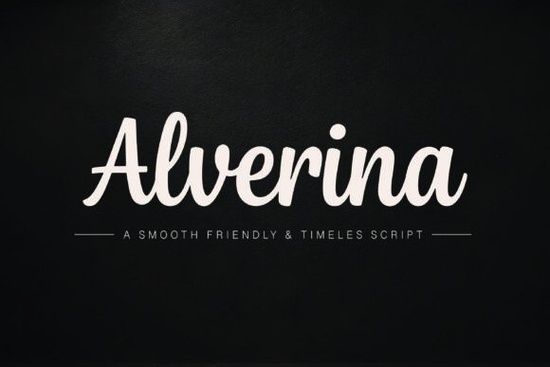
Finding a script font that looks polished but still feels personal can be tricky. The Alverina font strikes that balance well it has the flowing, elegant strokes of professional calligraphy with a warm, modern personality that works across many design styles. If you're working on branding, invitations, or social media graphics, this handwritten script font deserves a closer look.
What Does the Alverina Font Actually Look Like?
Alverina is a smooth handwritten script with bold strokes and soft connections between letters. The curves are flowing but controlled, giving it a premium signature feel without looking stiff or overly formal. It reads well at both large display sizes and smaller text, which is something many script fonts struggle with.
The letterforms have an expressive, natural quality like someone with great handwriting took their time. This makes it a strong choice for designs that need to feel luxurious but approachable at the same time.
Where Does This Font Work Best?
Based on its style and readability, here are some practical uses for Alverina:
- Logo design especially for beauty, fashion, lifestyle, and food brands
- Wedding invitations and event stationery
- Packaging and product labels for handmade or boutique goods
- Café menus and restaurant branding
- Social media graphics quotes, announcements, sale posts
- Editorial headlines and magazine-style layouts
- Print-on-demand products like mugs, tote bags, and greeting cards
Its versatility across both digital and print projects is one of the main reasons designers keep coming back to modern script fonts like this one.
How Does It Compare to Other Script Fonts?
There's no shortage of handwritten fonts available, so how does Alverina hold up? Compared to something like the Messy Memoir typeface, which leans into a raw, casual texture, Alverina is more refined and structured. It's less about imperfection and more about controlled elegance.
If you prefer something with a slightly different mood, Nuances Affection offers its own take on the handwritten aesthetic. And for projects that need a bolder, more dramatic script, Mallestian Script is worth considering.
For designers who want something with a more informal, candid vibe, this snapshot-style option might be a better fit. It really depends on the tone you're going for in your project.
Does It Work Well for Branding Projects?
Yes and this is where Alverina really shines. The combination of bold strokes and soft curves creates a look that feels high-end without being cold. For small businesses in the beauty, wellness, fashion, or food space, it can serve as a primary logo font or a supporting accent typeface.
Pair it with a clean sans-serif for body text, and you have a professional brand identity that doesn't feel generic. The natural handwritten quality helps brands stand out in a market full of overused typefaces.
Is It Readable Enough for Smaller Text?
This is a fair concern with any script font. Many decorative typefaces look beautiful at 72pt but fall apart at 14pt. Alverina handles this better than most thanks to its clear letter connections and consistent stroke weight. That said, it's still a script font for body copy or legal text, you'd want to pair it with a standard serif or sans-serif.
For headlines, subheadings, and short phrases, it holds up well in both print and screen applications.
What Should You Check Before Using It?
Before you start designing, here are a few things worth keeping in mind:
- ✅ Test it at the exact size you plan to use and preview on both screen and print
- ✅ Pair it with a simple, neutral typeface for body text
- ✅ Check letter spacing in your design tool script fonts sometimes need manual kerning adjustments
- ✅ Use it for short, impactful text like logos, headings, and quotes not long paragraphs